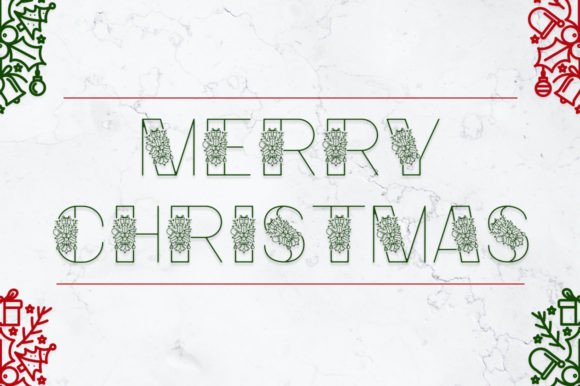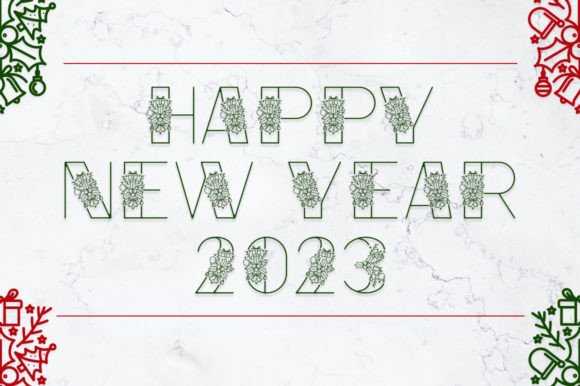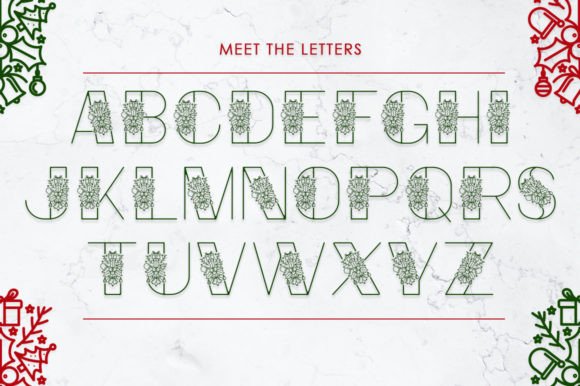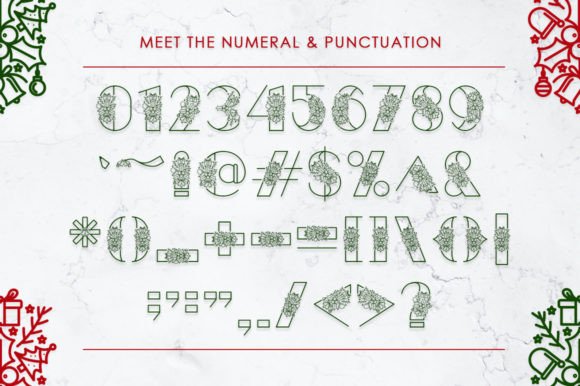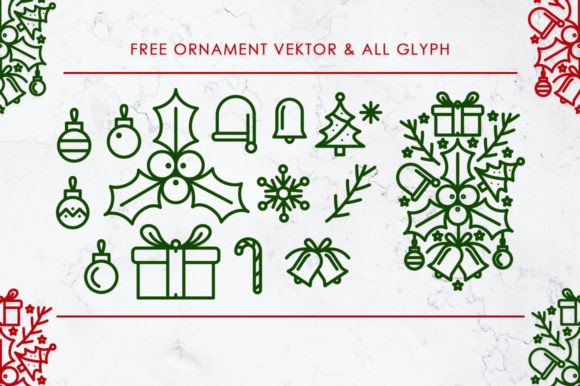
Cindy Font: The Ultimate Christmas Decorative Font for Your Holiday Projects
Are you looking for a festive and adorable font to add a touch of Christmas magic to your holiday-related projects? Look no further than Cindy Font! This cute and charming Christmas-themed decorative font is perfect for designers, crafters, and anyone looking to create eye-catching holiday content. In this article, we’ll dive into the world of Cindy Font, exploring its features, benefits, and uses, as well as provide tips on how to make the most of this delightful font.
What is Cindy Font?
Cindy Font is a specially designed Christmas-themed decorative font, created to bring a touch of festive fun to your holiday projects. With its playful and adorable design, Cindy Font is sure to capture the spirit of Christmas and add a dash of excitement to your designs. Whether you’re working on holiday cards, gift tags, social media graphics, or website content, Cindy Font is the perfect choice to make your projects stand out.
Features of Cindy Font
Cindy Font boasts a range of features that make it an ideal choice for holiday projects. Some of its key features include:
- Festive design: Cindy Font features a playful and adorable design that’s perfect for Christmas and other winter holidays.
- Decorative letters: The font includes a range of decorative letters, numbers, and symbols, making it easy to create eye-catching holiday content.
- Versatile: The font can be used for a range of holiday projects, from cards and gift tags to social media graphics and website content.
Benefits of Using Cindy Font
So, why choose Cindy Font for your holiday projects? Here are just a few benefits of using this delightful font:
- Adds a touch of festive fun: Cindy Font brings a dash of Christmas magic to your projects, making them more engaging and eye-catching.
- Increases creativity: With its playful design and range of decorative letters, Cindy Font inspires creativity and imagination.
Tips for Using Cindy Font
To make the most of Cindy Font, here are a few tips to keep in mind:
- Use it sparingly: While Cindy Font is adorable, it’s best to use it sparingly to avoid overwhelming your design.
- Pair with complementary fonts: Pair Cindy Font with complementary fonts to create visual interest and add depth to your design.
- Experiment with colors: Try out different colors and textures to add an extra layer of festivity to your design.
- Have fun: Most importantly, have fun with Cindy Font! Experiment with different designs and ideas to create something truly unique.
Cindy Font is a delightful Christmas-themed decorative font that’s perfect for designers, crafters, and anyone looking to add a touch of festive fun to their holiday projects. With its playful design, range of decorative letters, and ease of use, Cindy Font is sure to become a favorite in your font collection. So why wait? Add Cindy Font to your projects today and get ready to spread some holiday cheer!
Whether you’re creating holiday cards, gift tags, social media graphics, or website content, Cindy Font is the perfect choice to make your projects stand out. So go ahead, get creative, and make this holiday season one to remember with Cindy Font!